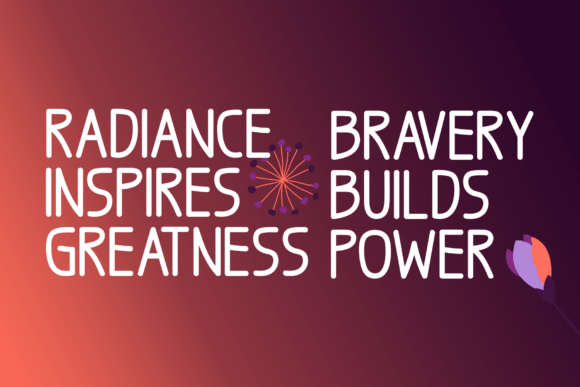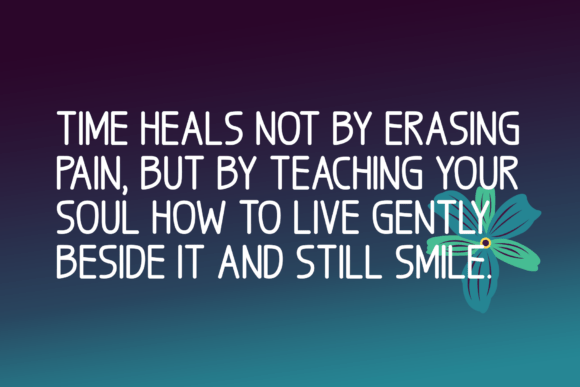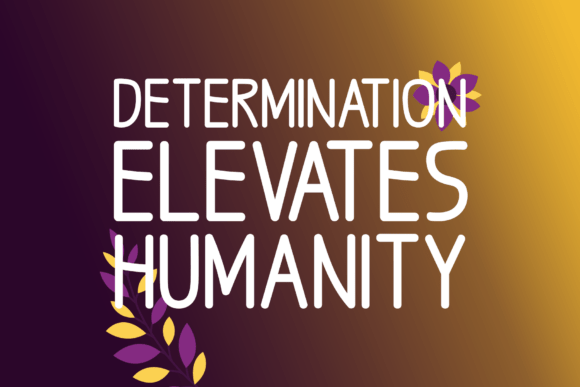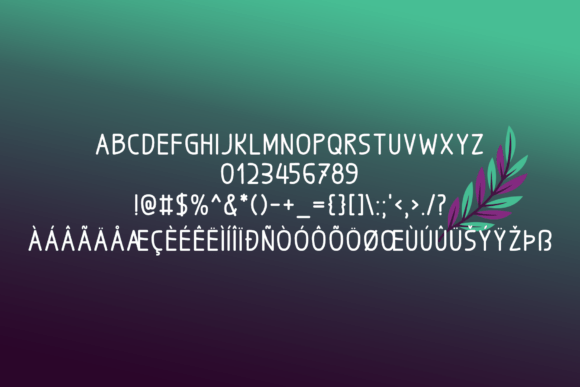
The Elusive Font: A Designer’s Journey to Discovering Gain Wisdom
I still remember the frustration of scrolling through font after font, searching for the perfect fit for a client’s branding project. The brief was simple: elegant, yet approachable; modern, yet timeless. It was as if I was searching for a needle in a haystack. That’s when I stumbled upon Gain Wisdom, a beautiful display font that has since become a staple in my design toolkit.
An Honest Review of Gain Wisdom
So, what makes Gain Wisdom so special? Let’s dive into the good stuff and, of course, a few quirks I’ve discovered along the way.
- ✨ Effortless elegance: Gain Wisdom exudes a sense of sophistication without being too formal. It’s perfect for projects that require a touch of refinement.
- ✅ Versatility: This font works beautifully across various platforms, from digital designs to print materials like stationery, posters, and invitations.
- 💫 Unique character: The flowing, natural strokes of Gain Wisdom give it a handcrafted feel that’s hard to find in digital fonts.
While Gain Wisdom is an excellent font, there are a few things to keep in mind:
- ⚠️ Limited use in body text: Due to its elegant, display nature, Gain Wisdom might not be the best choice for lengthy body text. It’s perfect for headings, titles, and short paragraphs, though!
- 🤔 Some glyph limitations: While Gain Wisdom offers a range of OpenType features, some users might find the selection of glyphs or stylistic alternates a bit limited for their specific needs.
The Story Behind Gain Wisdom
While the origins of Gain Wisdom might be shrouded in mystery, it’s clear that this font was designed with love and care. Imagine a designer, sitting by a window, pouring over sketches and typography, aiming to create a font that feels both effortlessly elegant and approachably warm. That’s the vibe Gain Wisdom gives off – a blend of simplicity and charm.
Q: Is Gain Wisdom suitable for body text?
A: While it’s technically possible, Gain Wisdom is best used for headings, titles, and short paragraphs due to its elegant, display nature.
Q: Does Gain Wisdom support OpenType features?
A: Yes, Gain Wisdom offers a range of OpenType features, including ligatures and stylistic alternates, to enhance your designs.